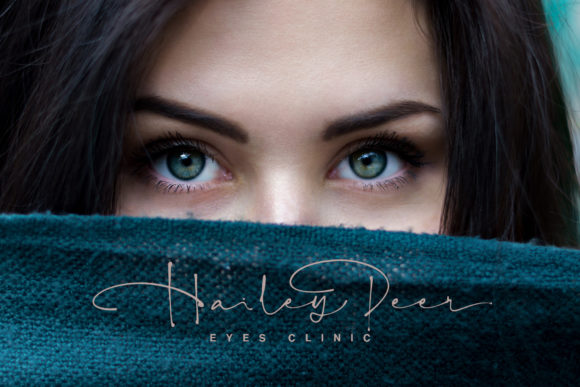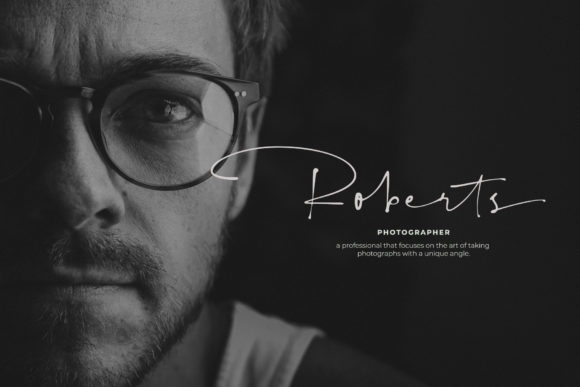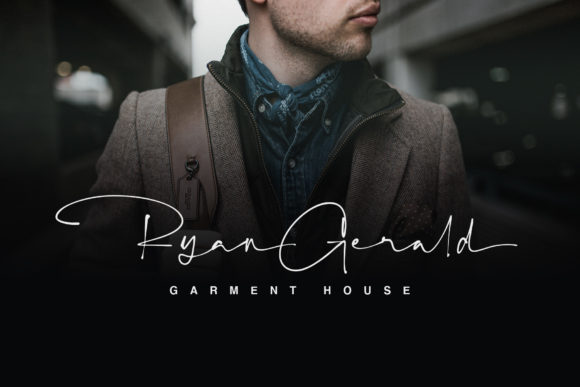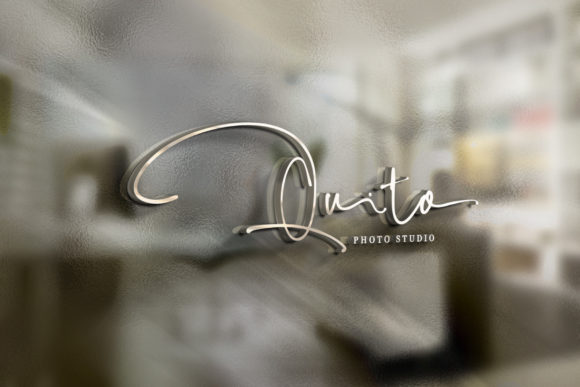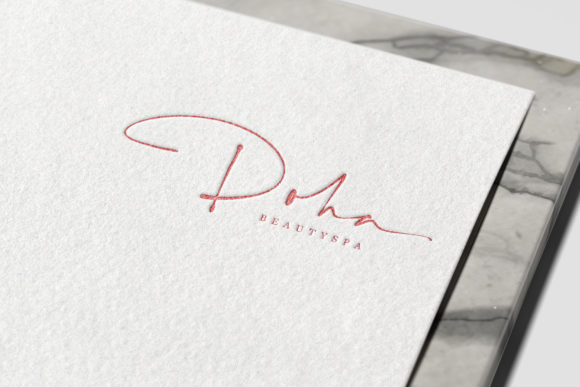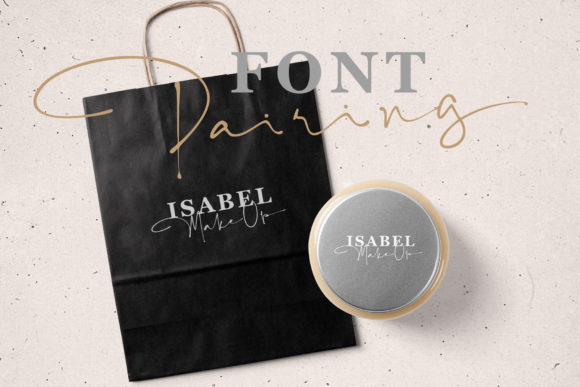
Introduction to Hello Stylish Font
Hello Stylish is a lovely and timeless handwritten font.
It is the best choice for creating eye catching logos, branding and quotes This font is PUA encoded which means you can access all of the glyphs and swashes with ease.
Hello Stylish Font offers exceptional quality and versatility, making it a valuable addition to your design toolkit. Whether you’re creating for personal projects or commercial use, Hello Stylish Font delivers professional results.